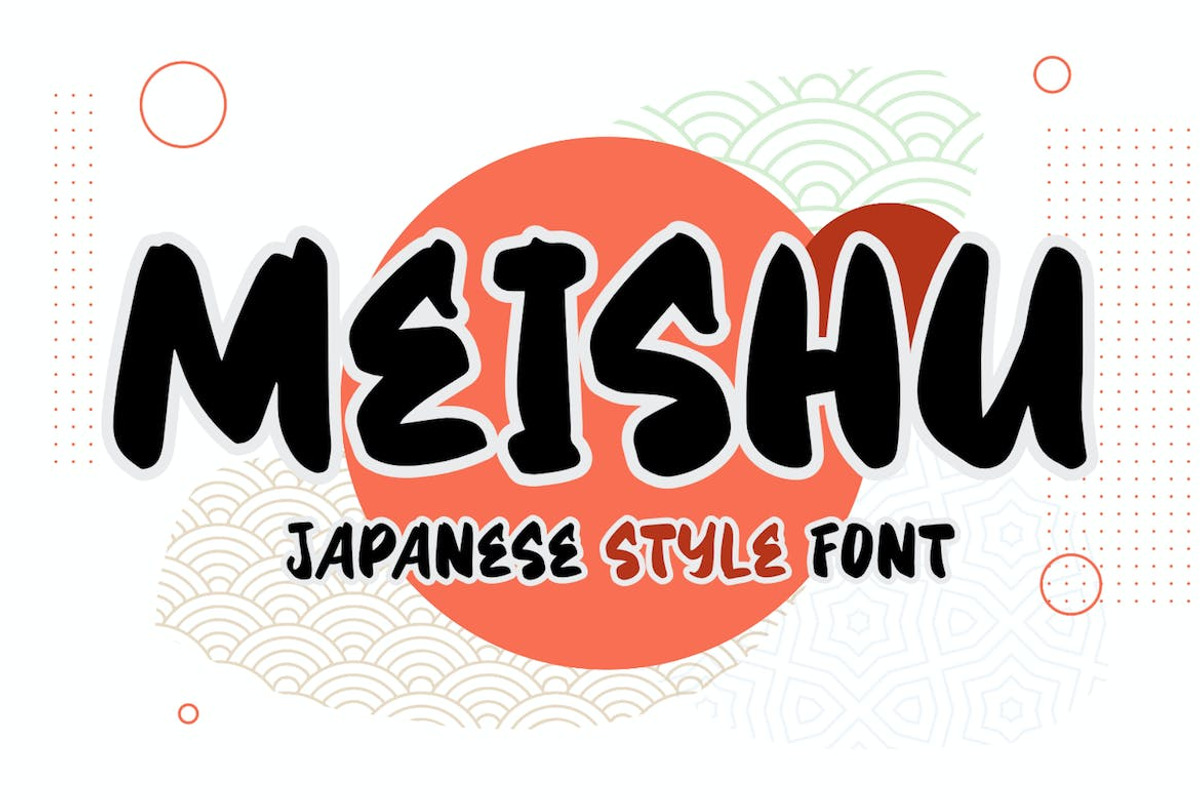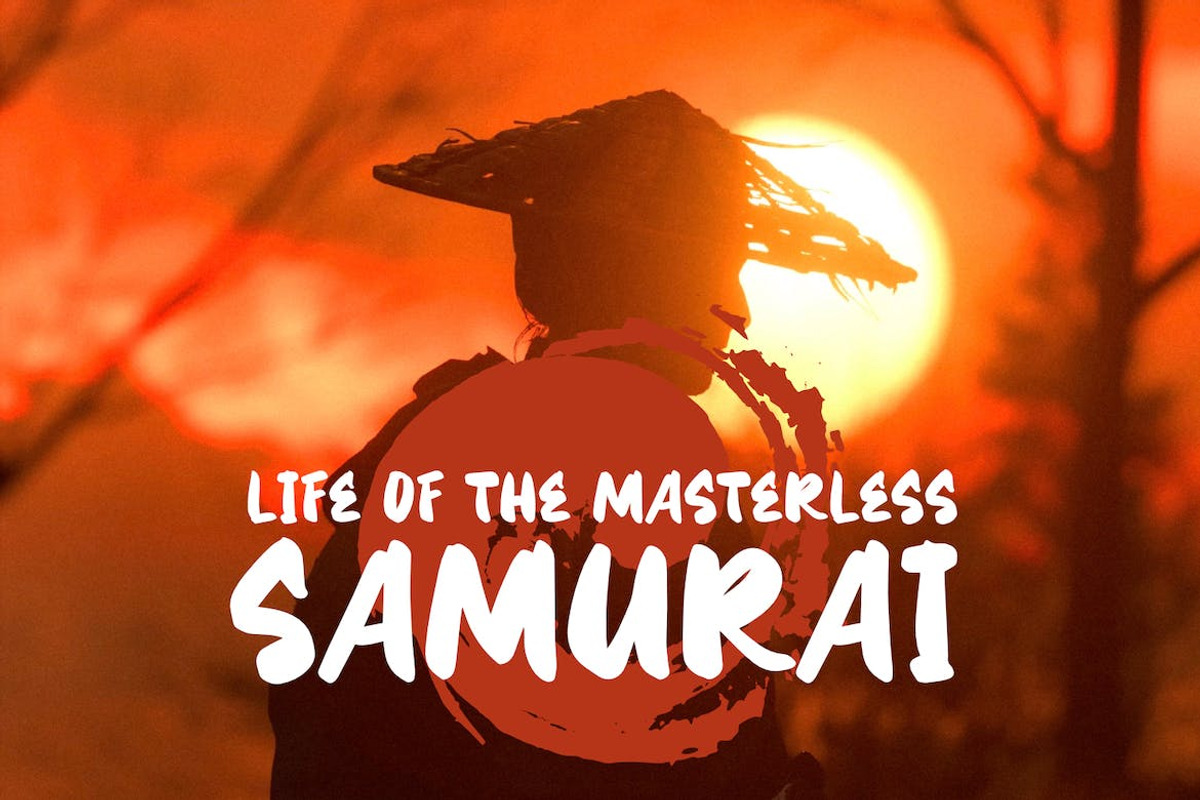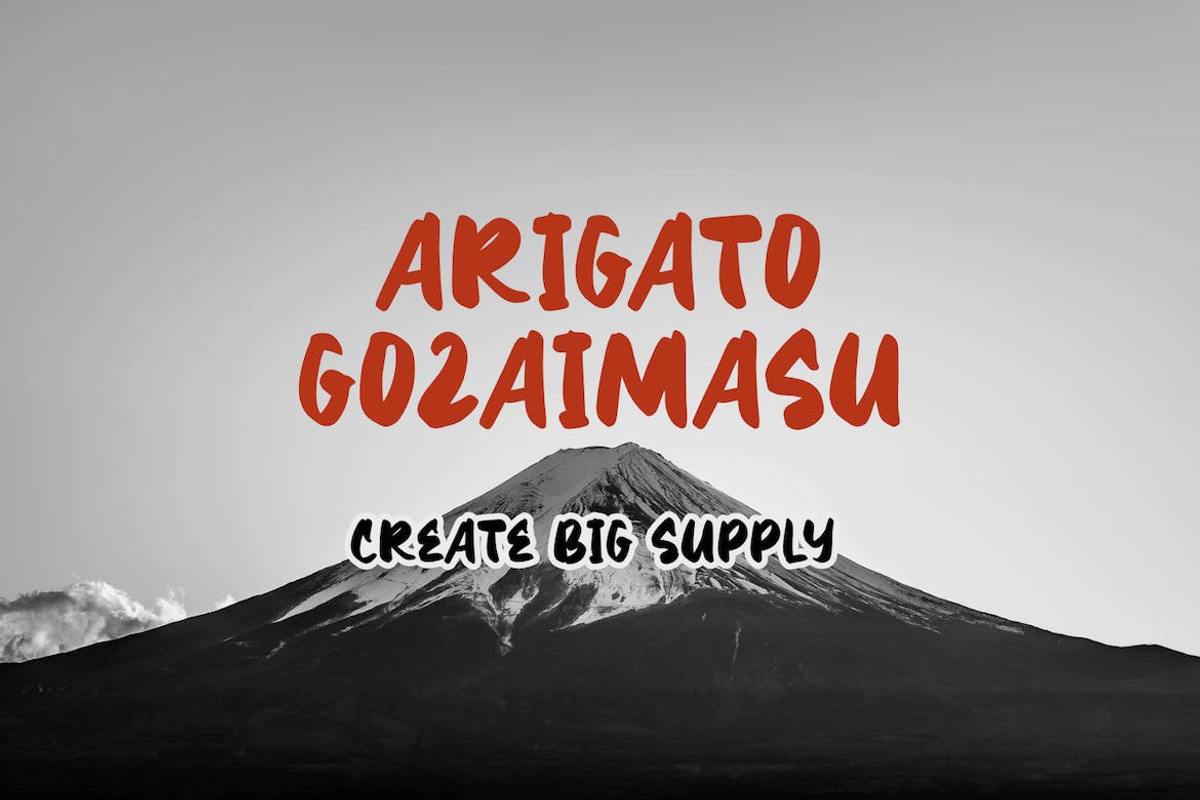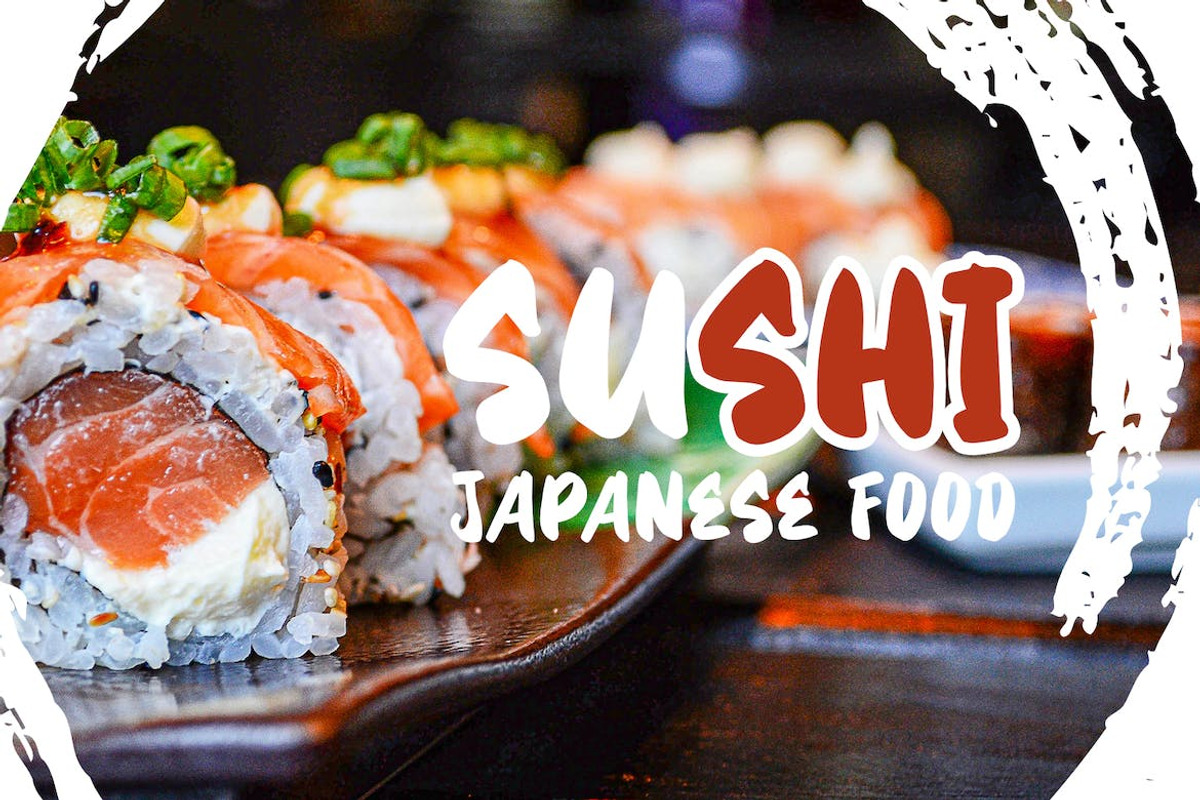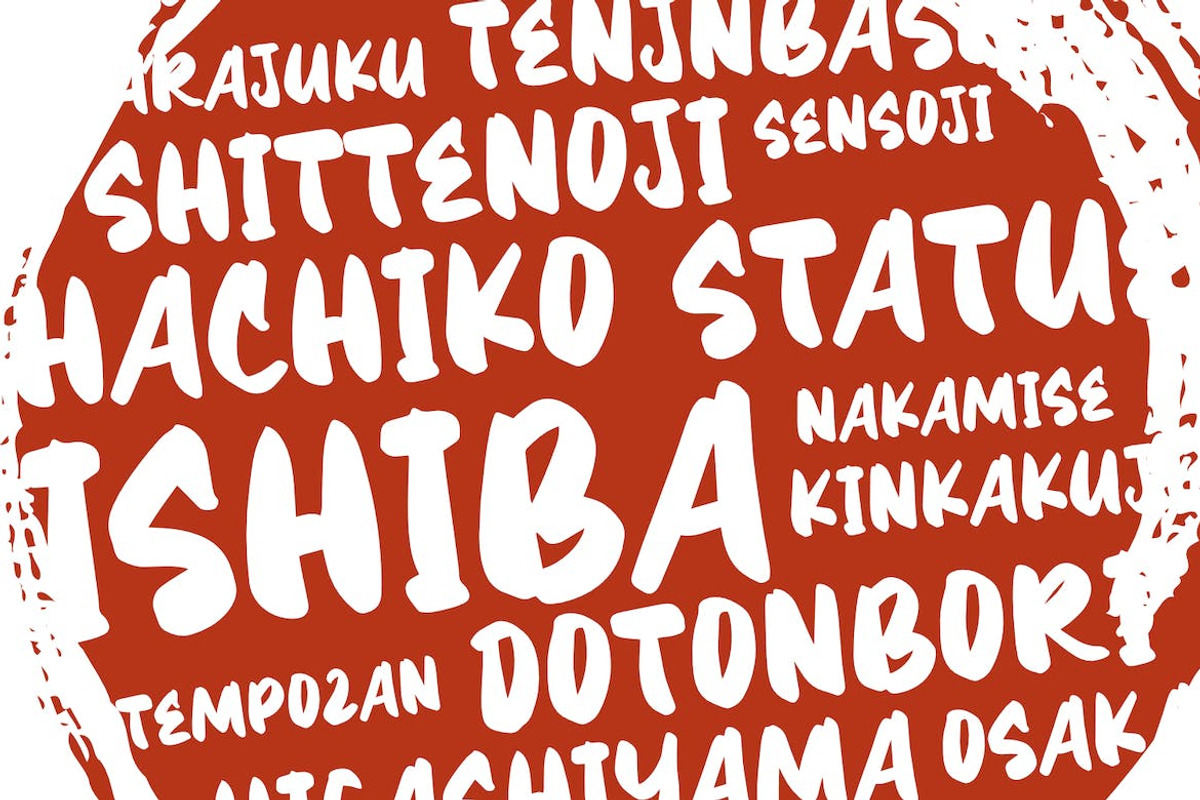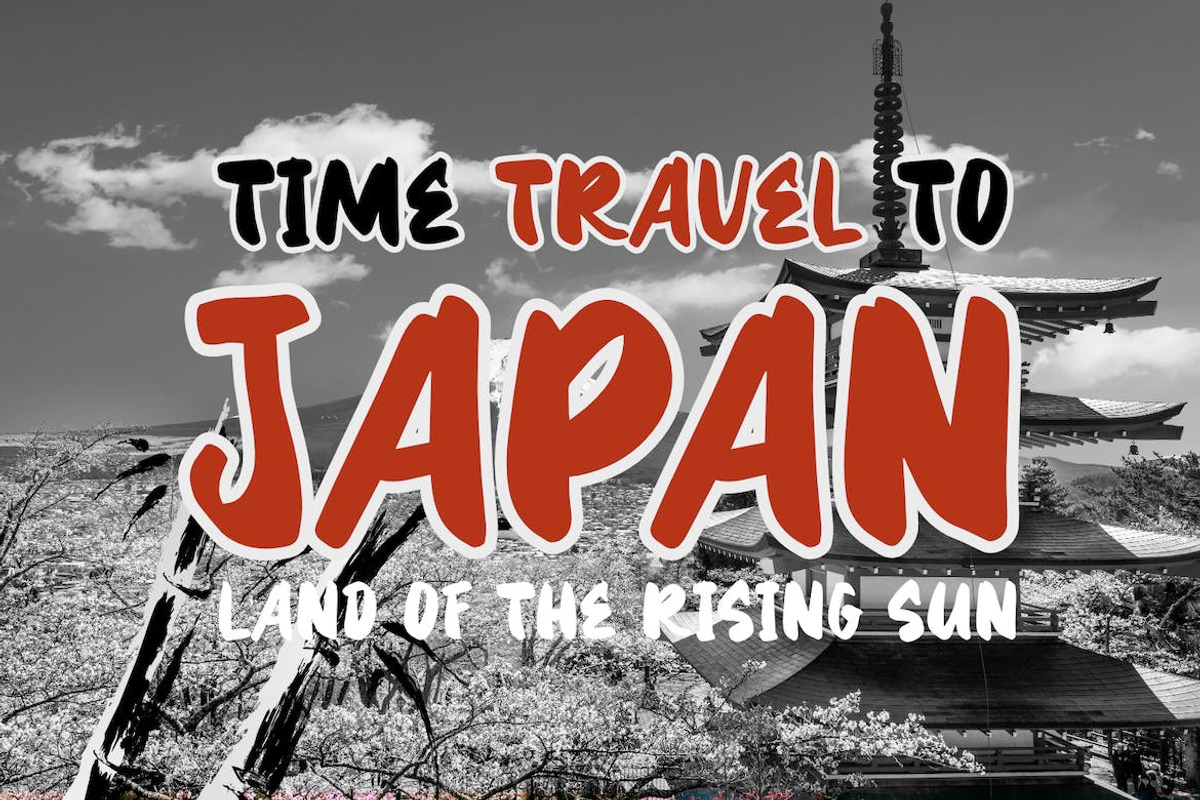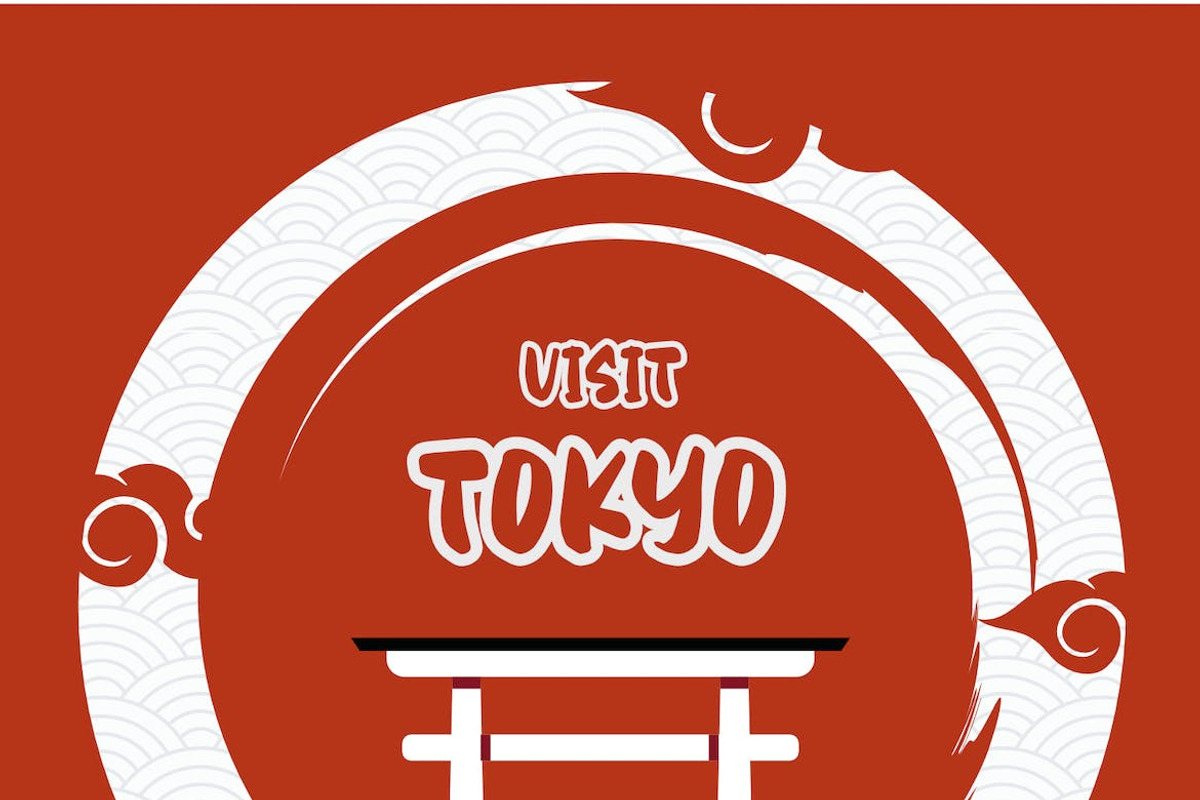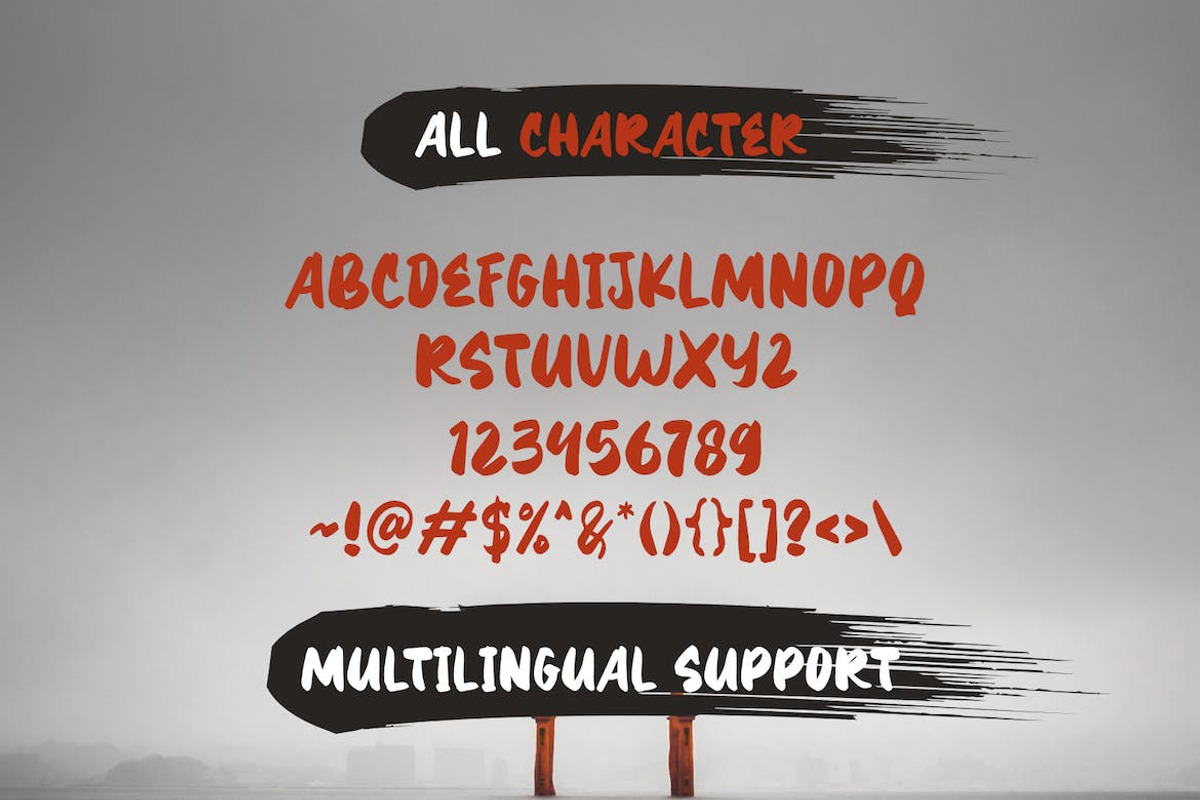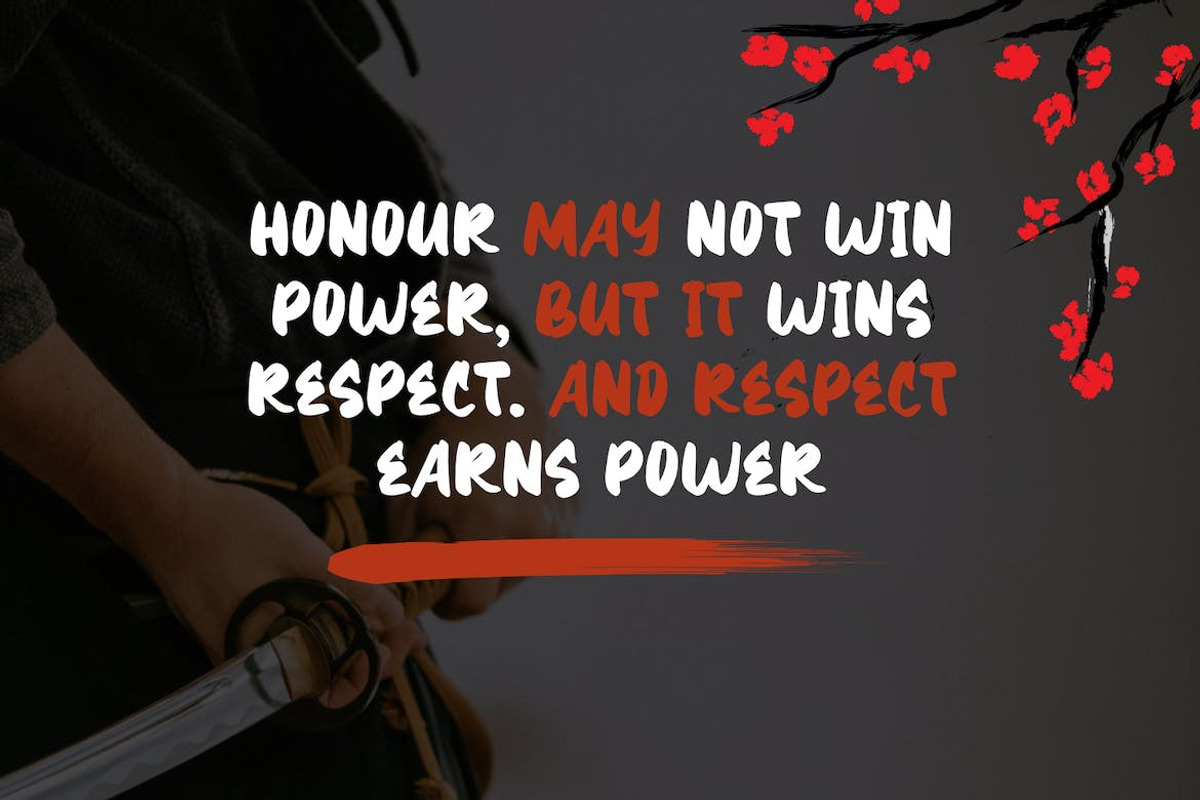
Meishu - Japanese Brush Font
Discover Meishu, a captivating Japanese brush font that combines elegance and authenticity. With its strong and natural stroke style derived from an original brush, Meishu adds a touch of Japanese flair to your designs. This versatile font is particularly well-suited for logos, labels, magazines, books, greeting cards, packaging, novels, and various advertising materials.
Meishu features a comprehensive character set, including both uppercase and lowercase letters, numbers, punctuation marks, and multilingual support. Its unique brush aesthetics bring a sense of artistic charm and cultural richness to your projects.
Unlock the beauty of Japanese calligraphy with Meishu and create designs that truly stand out.